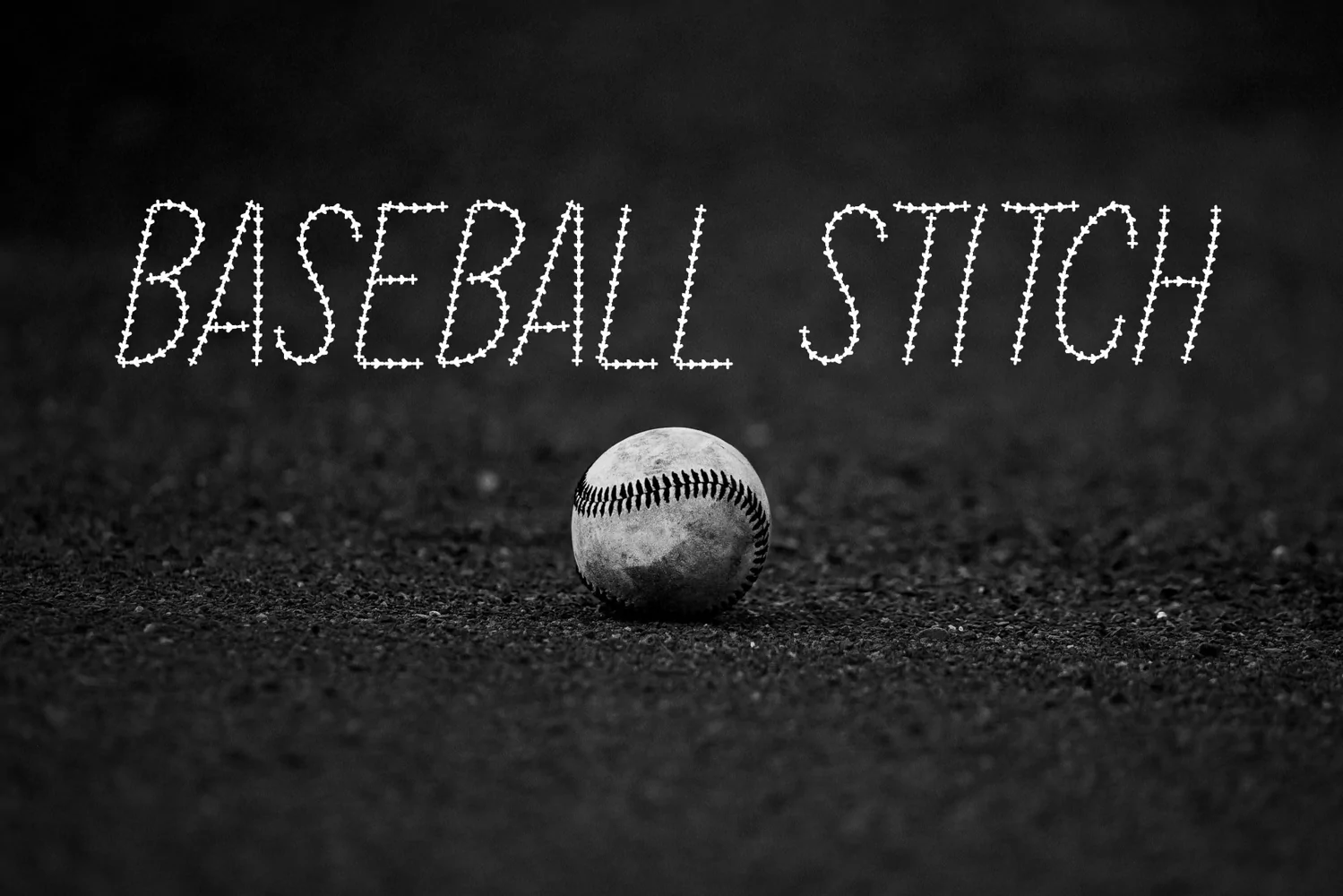
Baseball Stitch is sport-inspired decorative font. This font is the ideal font for adding an adventurous and authentic feel to your next design idea!
Perfect for embroidery and sewing crafts. Great for posters, embroidery craft, invitations, art and crafts, T-Shirts and more.